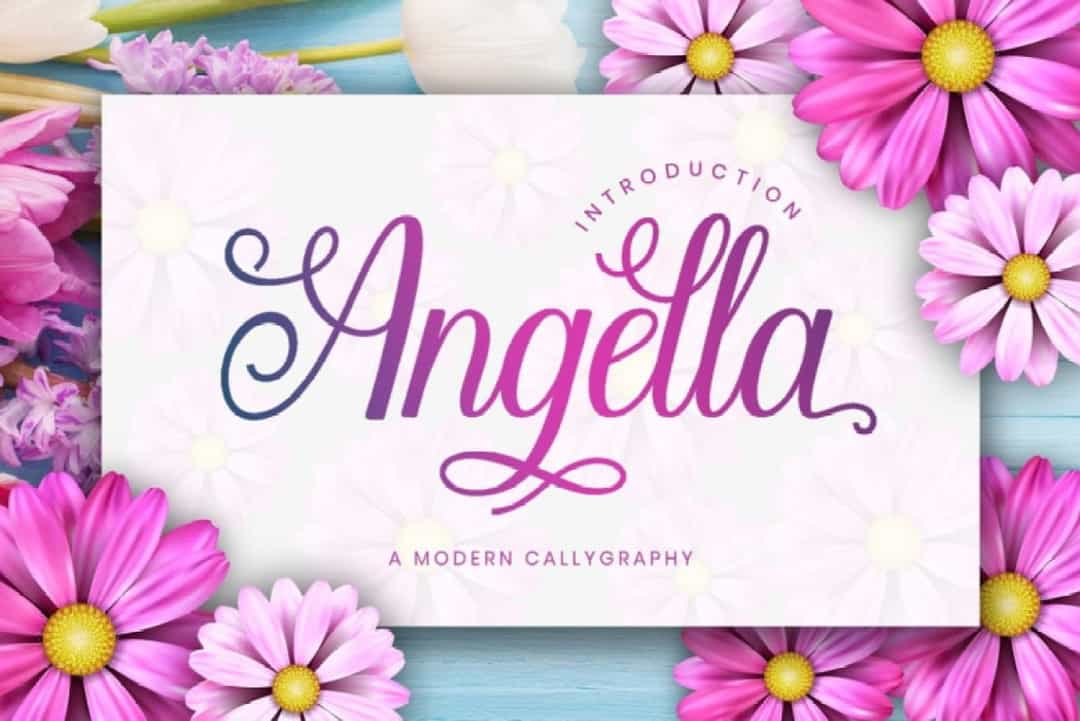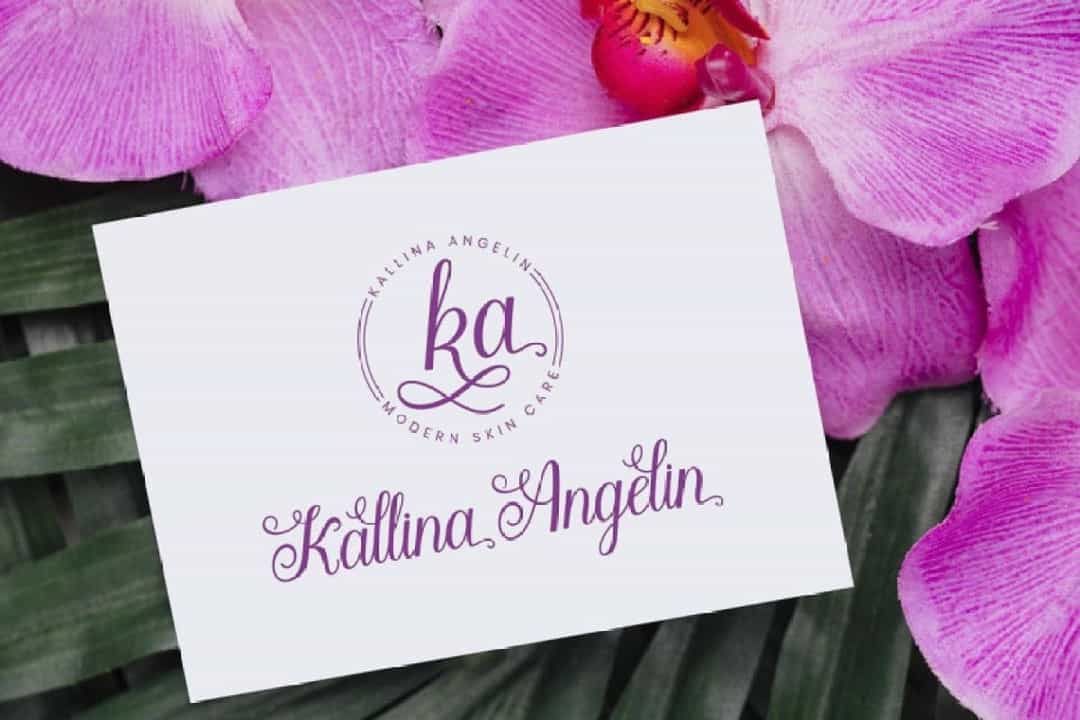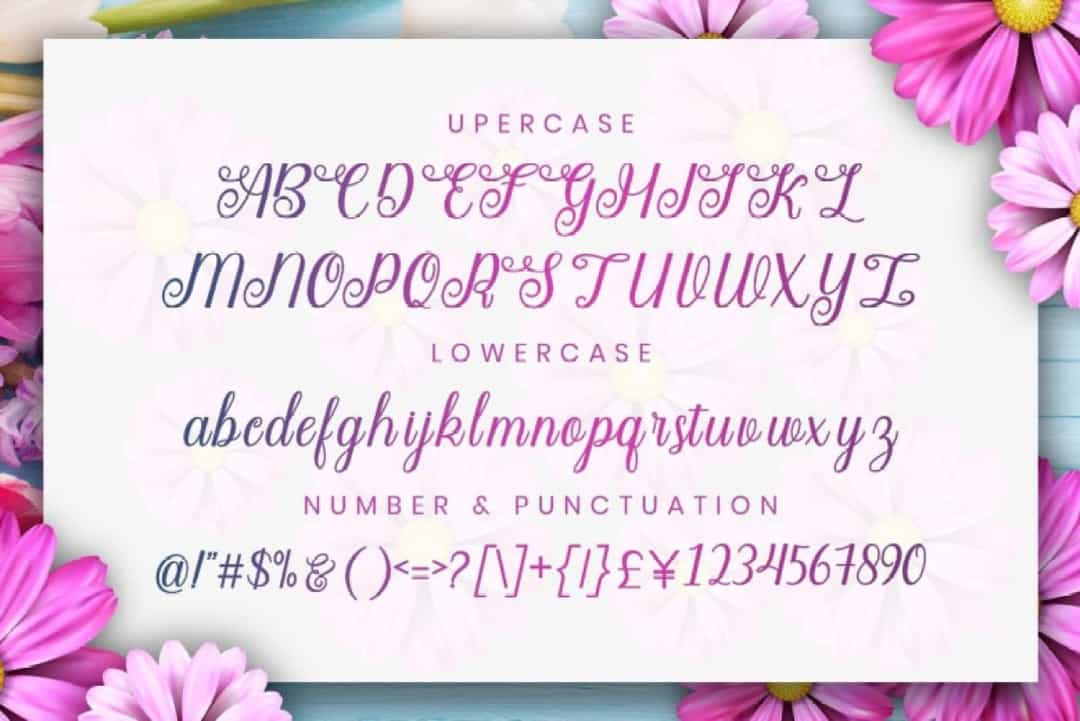
Angella is a sophisticated font of the modern script type which has been designed keeping style in mind. This font is a blend of traditional look and actual calligraphy that keeps the design friendly and inviting for everyone to use for their projects.